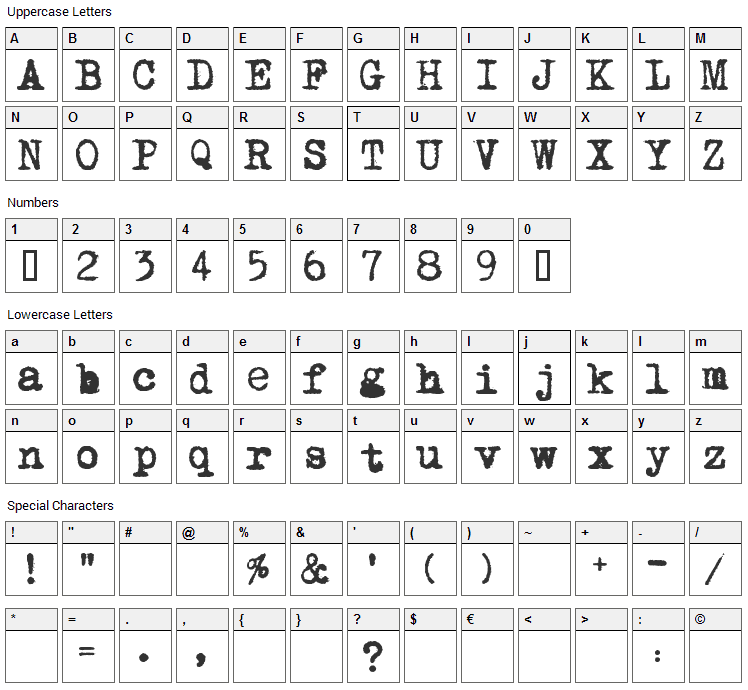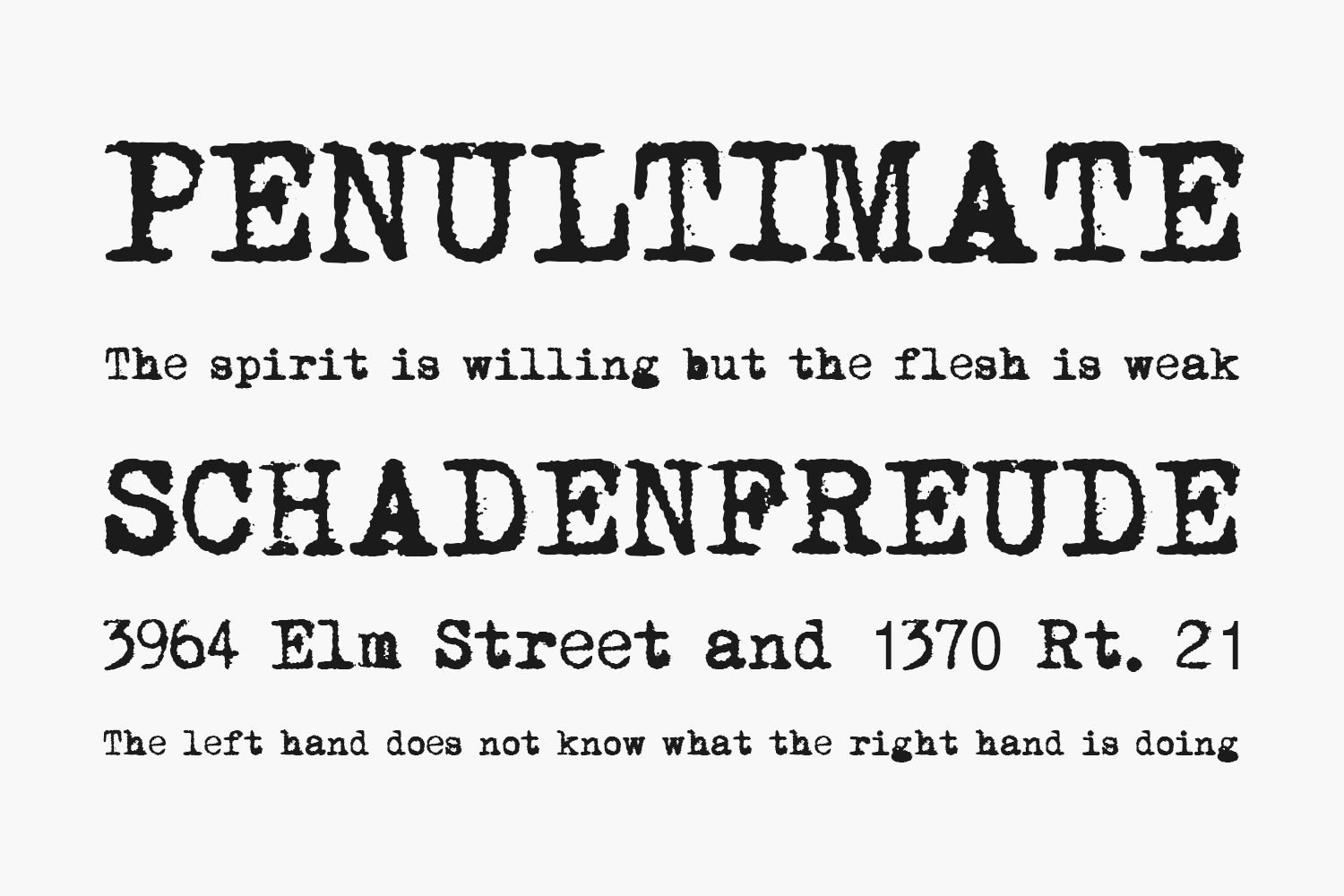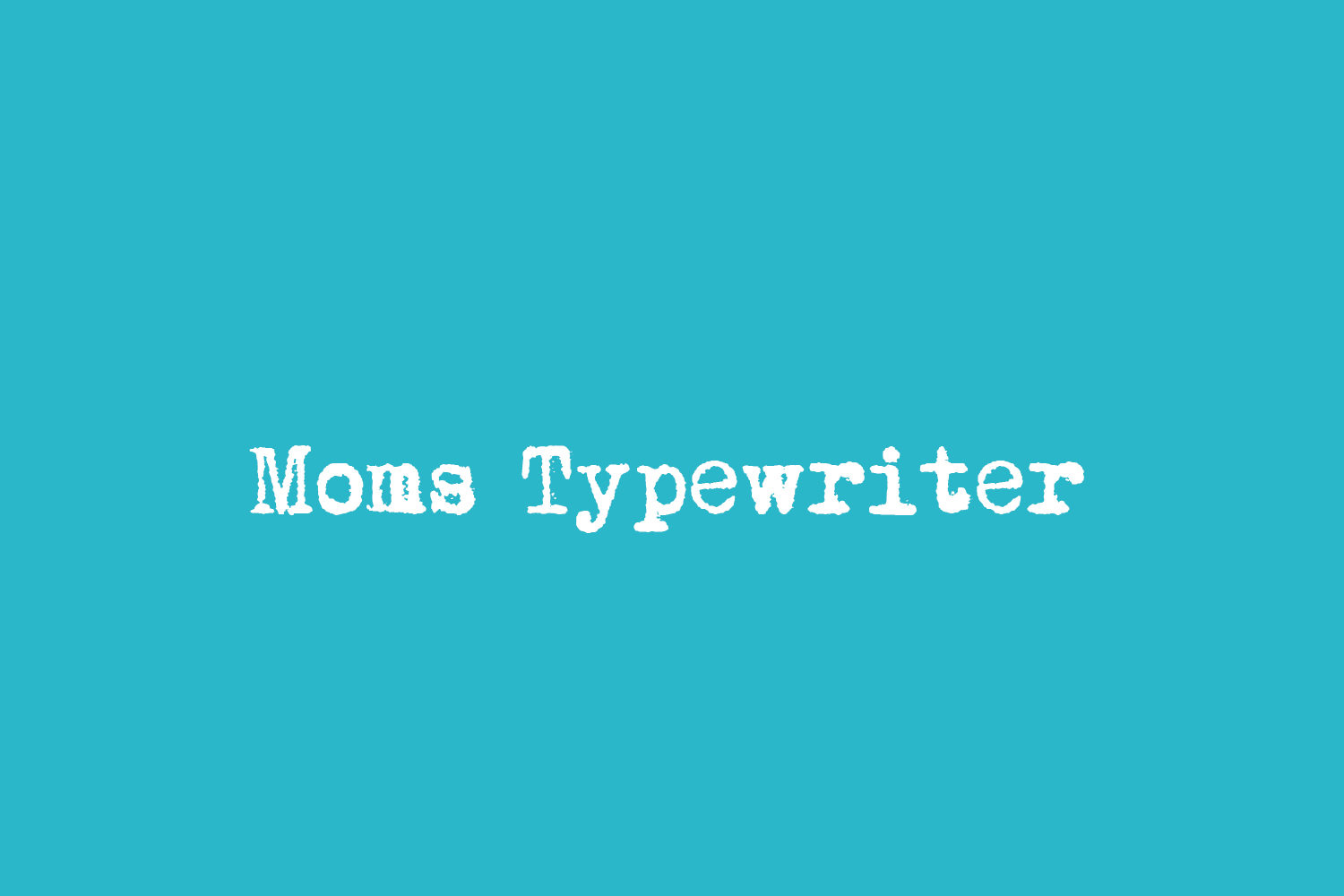
Mom's Typewriter Font
Mom´s Typewriter font
Moms Typewriter Fonts Shmonts
Mom's Typewriter Font
Moms Typewriter Google Fonts
Moms Typewriterフォント無料ダウンロード フォント無料ダウンロード
Web mom's typewriter is a free font for commercial use created by christoph mueller. Web mom's typewriter by christoph mueller. Web moms typewriter font free by christoph mueller » font squirrel. Mom's typewriter is a fancy type. 2,101,687 downloads (528 yesterday) 19 comments 100% free.
Moms Typewriter Fonts Shmonts
2,101,687 downloads (528 yesterday) 19 comments 100% free. Web mom's typewriter by christoph mueller. Web moms typewriter font free by christoph mueller » font squirrel. Web mom's typewriter is a free font for commercial use created by christoph mueller. Mom's typewriter is a fancy type.
Web Mom's Typewriter By Christoph Mueller.